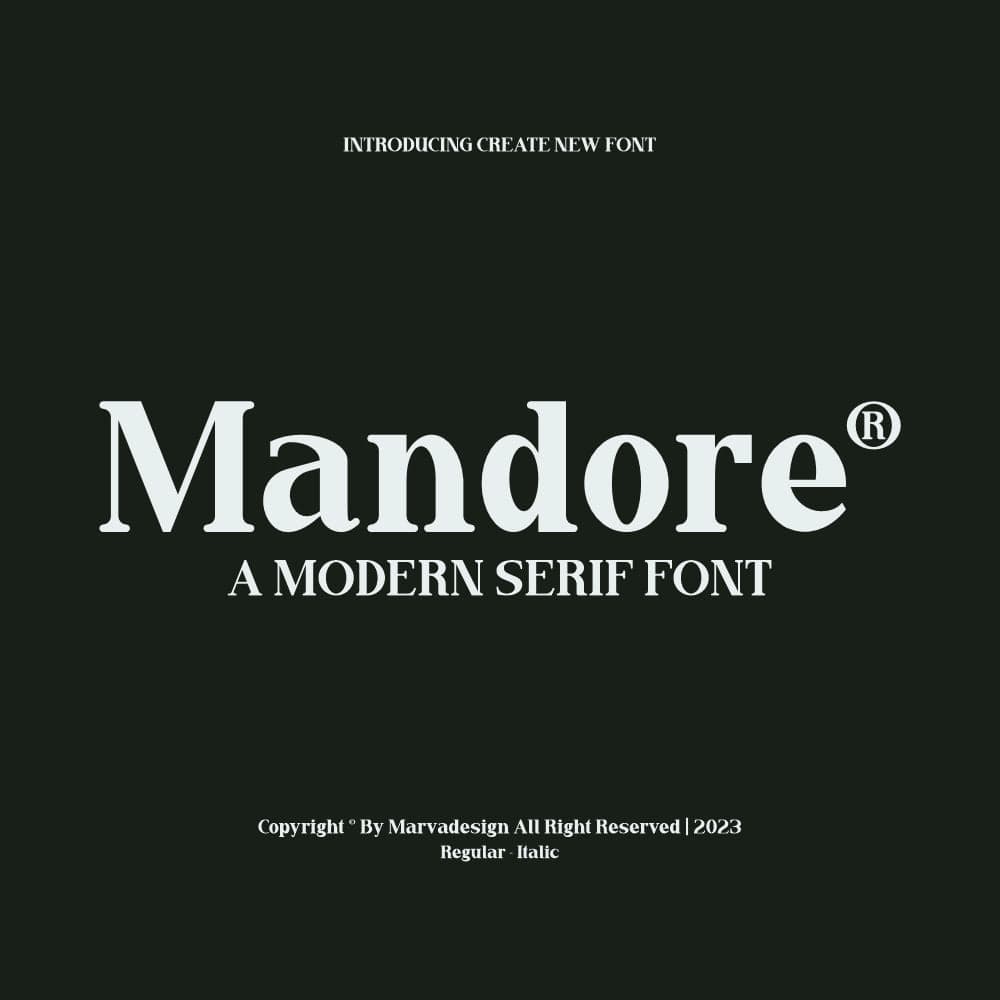
<p>Introducing *<em>Mandore *</em> is a modern serif typeface that blends classical elegance with contemporary sophistication. Its strong, well-defined serifs and high contrast between thick and thin strokes give it a refined and authoritative presence, making it ideal for editorial, branding, and display purposes. The letterforms exhibit a harmonious balance, with slightly extended ascenders and descenders that enhance readability while maintaining a striking visual appeal. The italic variation adds a graceful, fluid touch, making it suitable for emphasis in headlines, quotes, or luxury branding. With a timeless yet modern aesthetic, this font exudes professionalism and sophistication, making it a versatile choice for high-end design applications.</p>